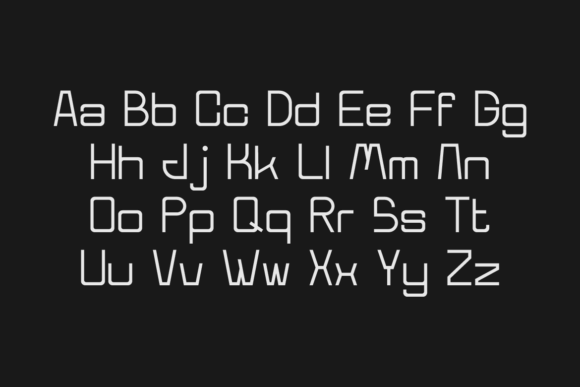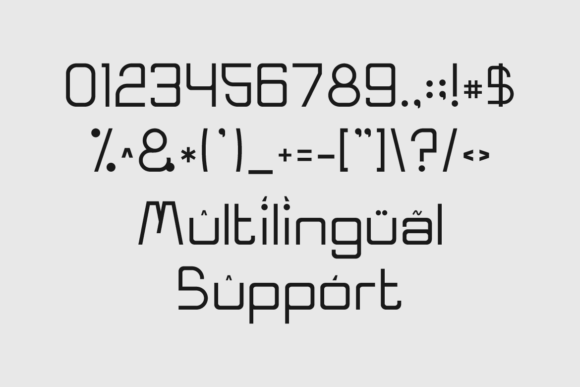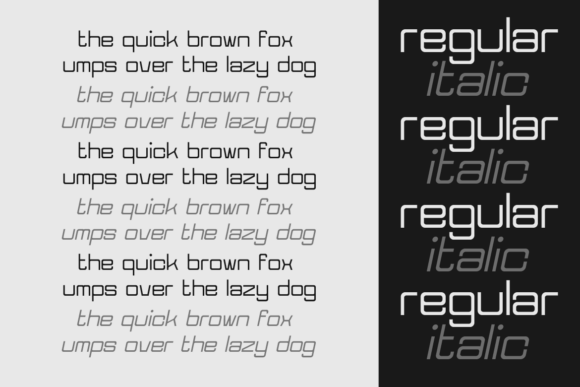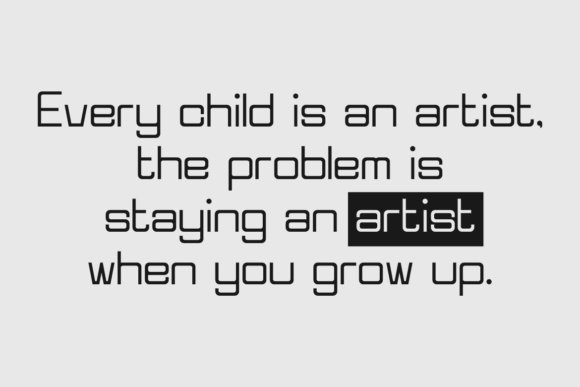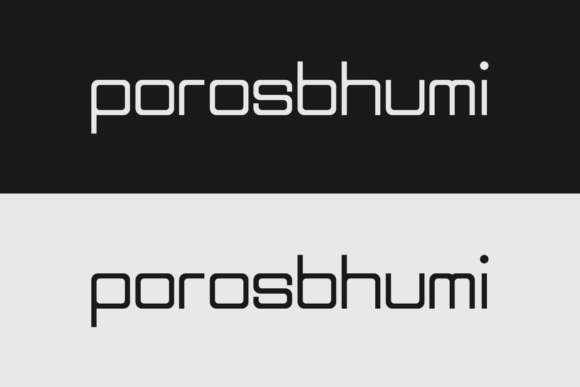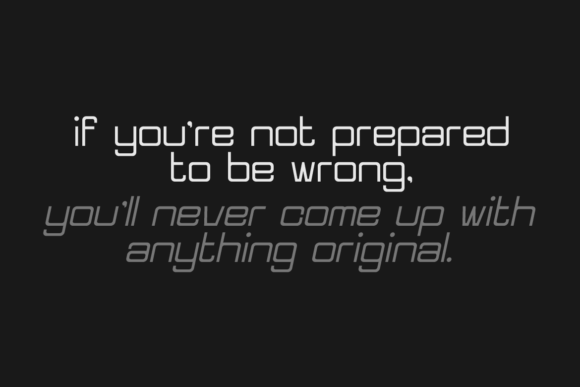
Introduction to Juxape Font
Have you ever found yourself stuck on a creative project, searching for the perfect font to elevate your design? Maybe you’re building a brand for a startup and want to convey a sense of innovation and tech-savviness. Or perhaps you’re developing user interfaces and need a font that’s both modern and user-friendly. Whatever your design goals, you’re in luck – we’re about to introduce you to the Juxape Font, a game-changing sans serif font that’s sure to take your creative projects to the next level.
With its sleek lines, sharp terminals, and futuristic shapes, the Juxape Font brings a high-tech aesthetic to any design. Whether you’re working on a free download or a high-quality commercial project, this font delivers clarity and a cutting-edge vibe that’s hard to resist. And the best part? It’s a valuable resource for designers of all levels, offering a versatile design solution that’s perfect for a wide range of creative applications.
Key Features of Juxape Font
- High-quality design resource ideal for creative projects requiring a unique touch
- Unique characteristics include intricate details and a bold, eye-catching design that adds visual interest to any project
- Perfect for designers looking for a high-quality, free design resource to elevate their creative projects
Honest Review: Juxape Font
I recently had the chance to work with the Juxape Font on a creative project and I must say, I was impressed. The first thing that caught my attention was its high quality and versatility. This font is perfect for designers looking for a unique and stylish design resource.
Here are some features that I loved about the Juxape Font:
- ✨ High quality and crisp design, perfect for print and digital applications.
- ✨ Versatile and can be used for a variety of creative projects, from logos to headlines.
However, there are a few limitations that I encountered:
- ⚠️ Limited font styles and variations, which may not be suitable for complex designs.
- ⚠️ Not ideal for use on a transparent background, as the font may not show up clearly.
Overall, I would highly recommend the Juxape Font for designers looking for a high-quality and stylish design resource. While it may have some limitations, its versatility and free download make it a great addition to any design arsenal.
Getting the Most Out of Juxape Font
To get the most out of Juxape Font, experiment with different font sizes, colors, and combinations. You can also use the font in conjunction with other design elements, such as images, shapes, and graphics. With its high-quality typography and transparent background, Juxape Font is a valuable design resource for any creative project.
Juxape Font is ideal for various creative projects, including social media graphics, presentations, infographics, and more. The font’s clean and modern design makes it perfect for business and personal projects alike.